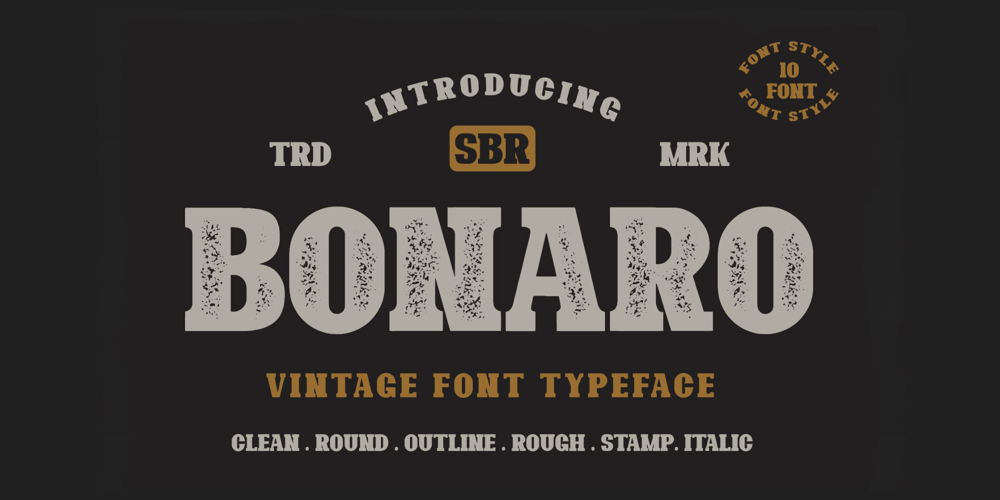
Bonaro Font Family was designed by Irpan Maulana and published by Sabrcreative. Bonaro contains 10 styles and family package options. Introducing the Bonaro Vintage Retro Serif All Caps Font, a versatile collection that brings timeless elegance and a touch of nostalgia to your design projects. With its 10 distinct styles, this font offers a treasure trove of possibilities, making it an essential asset for designers seeking to infuse their work with vintage charm.